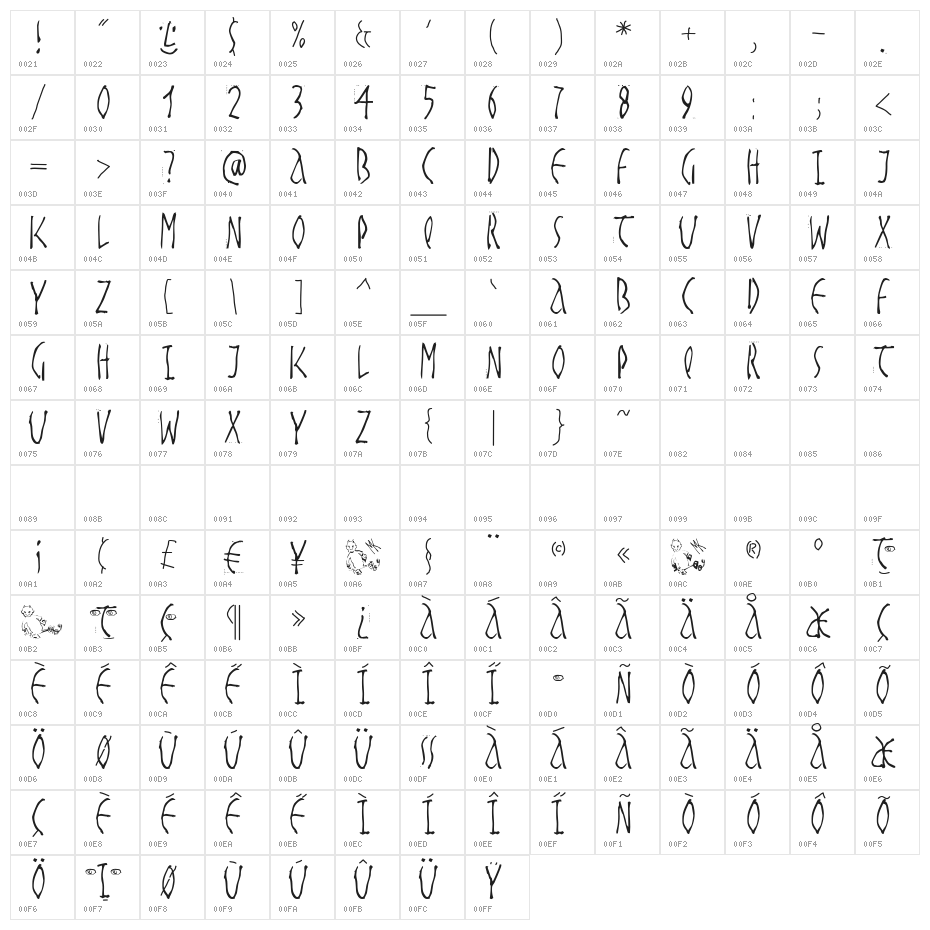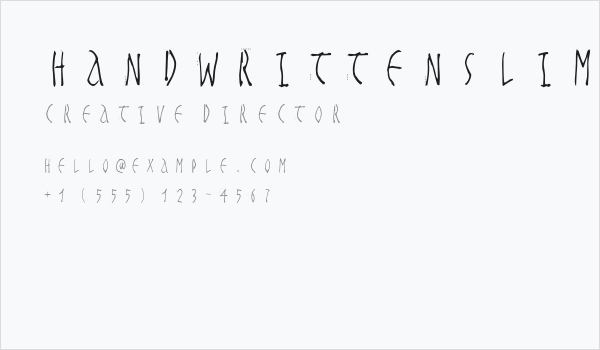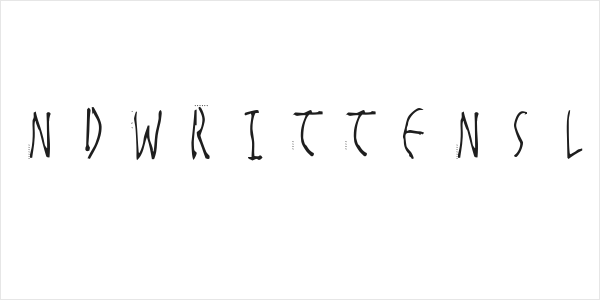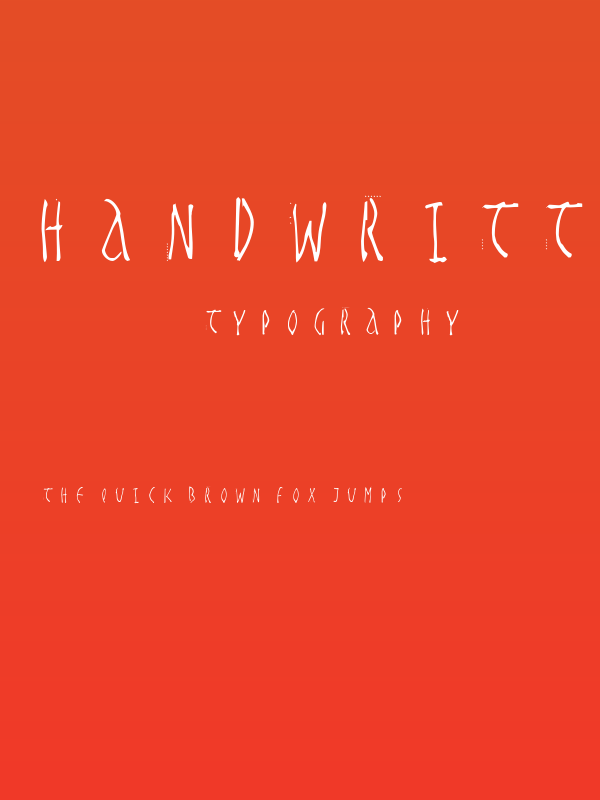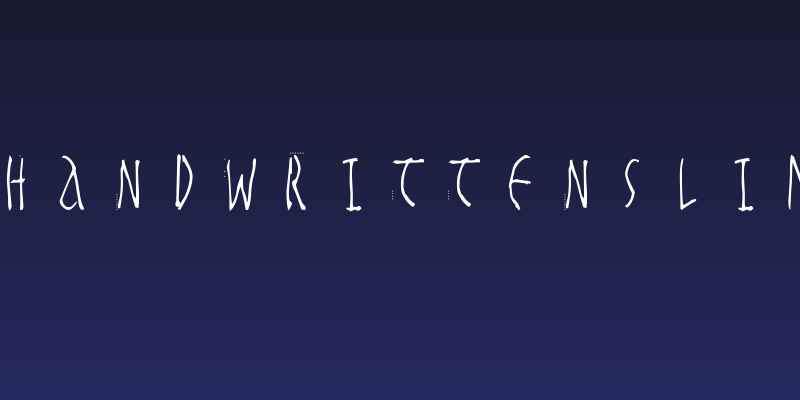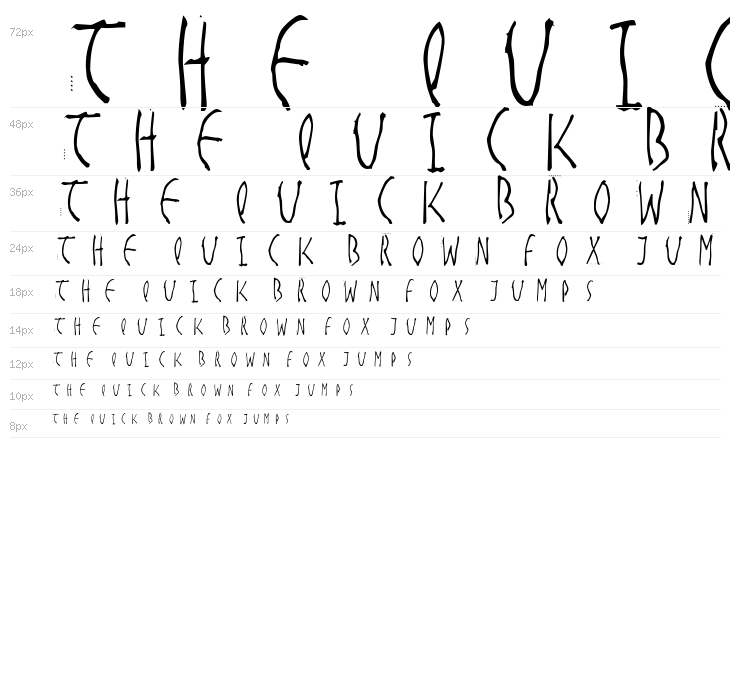
HandwrittenSlim Font
HandwrittenSlim Description
This font exhibits a unique handwritten style characterized by its slim and elongated letterforms. The strokes are uneven, giving it an organic and personal touch, reminiscent of casual handwriting. The uppercase and lowercase letters maintain a consistent style, with slight variations in stroke width that add to its charm. The numerals and special characters follow the same aesthetic, ensuring a cohesive look across all text elements. This font's playful yet elegant appearance makes it suitable for projects that require a personal or informal tone.
| Overall Style | Casual, Organic |
| Use Case | Headlines, Personal notes, Invitations |
| Proposed Projects | Ideal for personal notes, invitations, greeting cards, or any project that benefits from a handwritten aesthetic. |